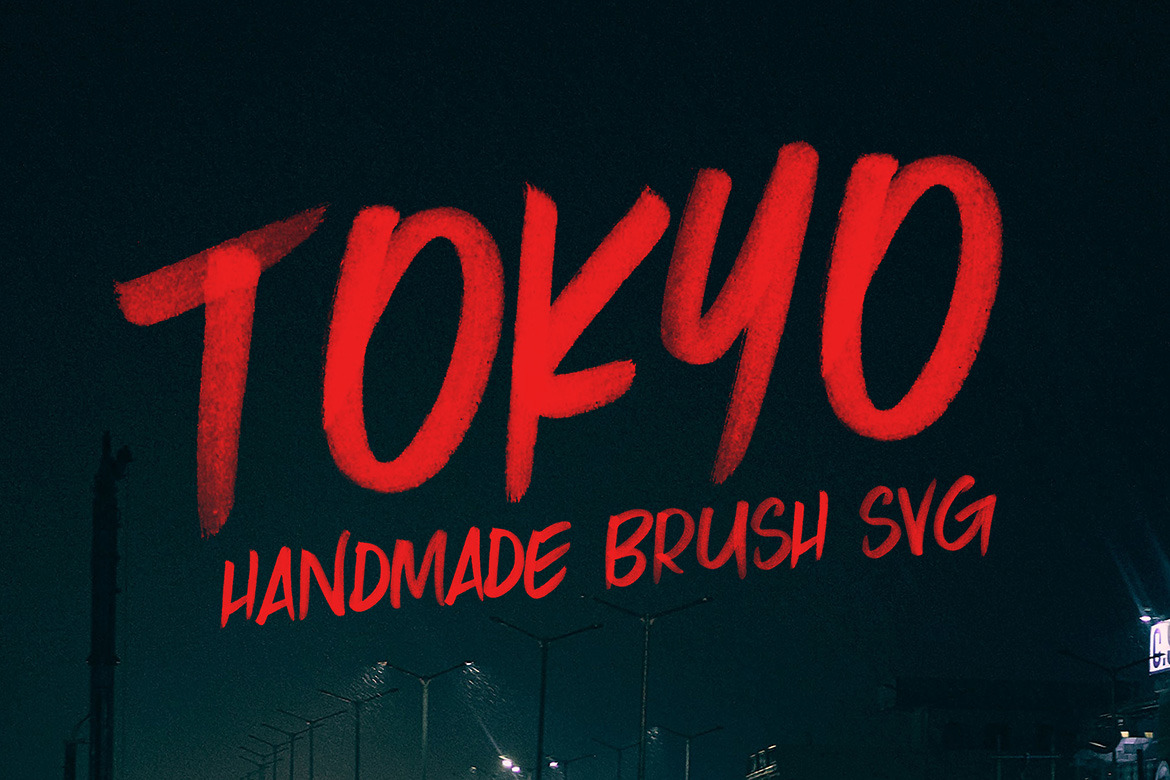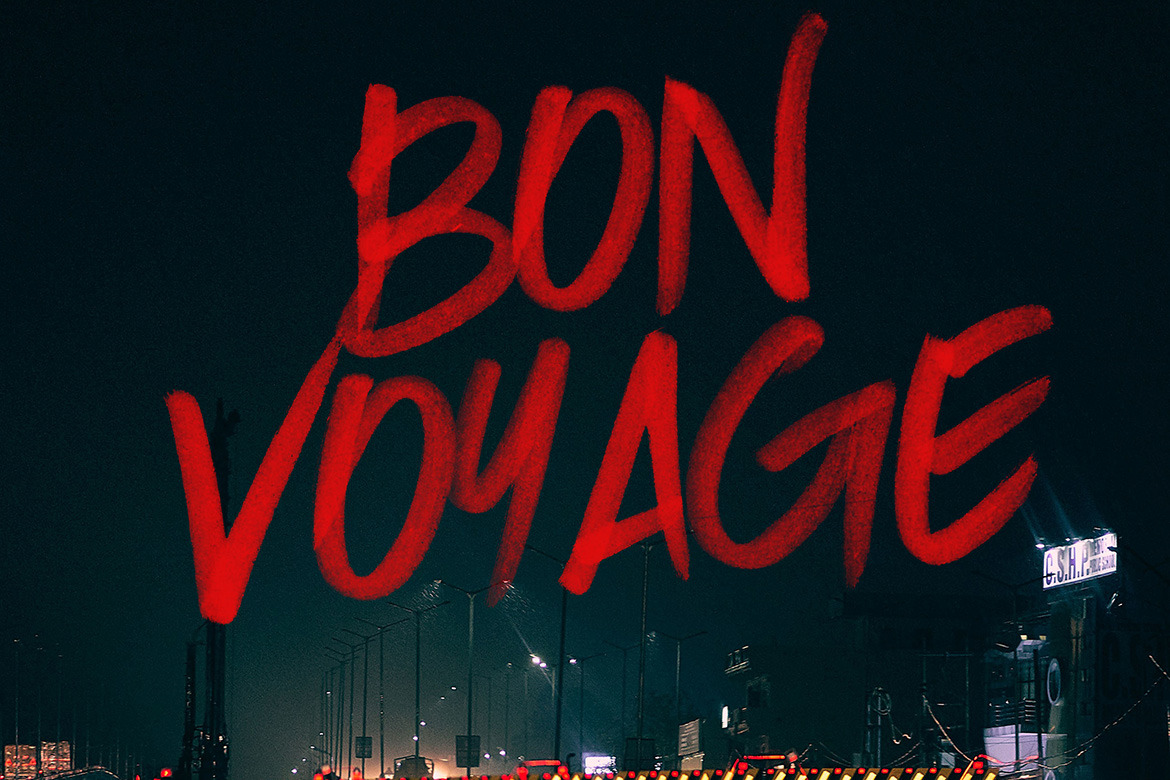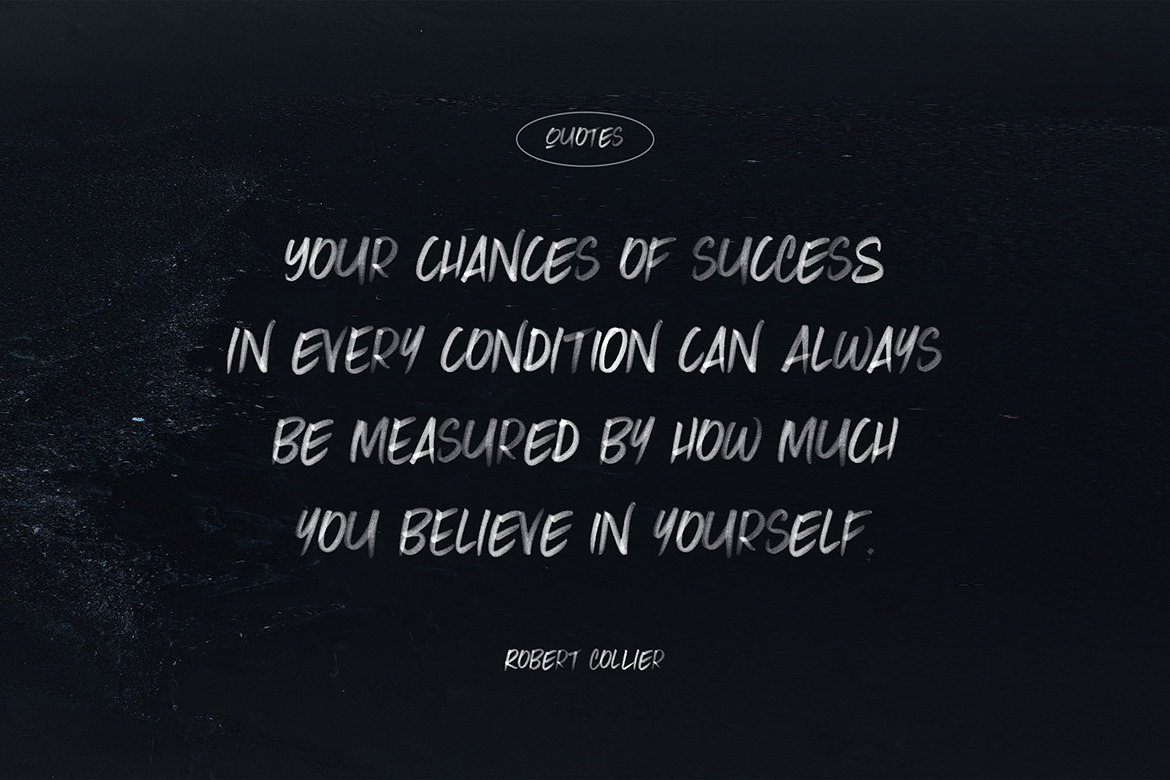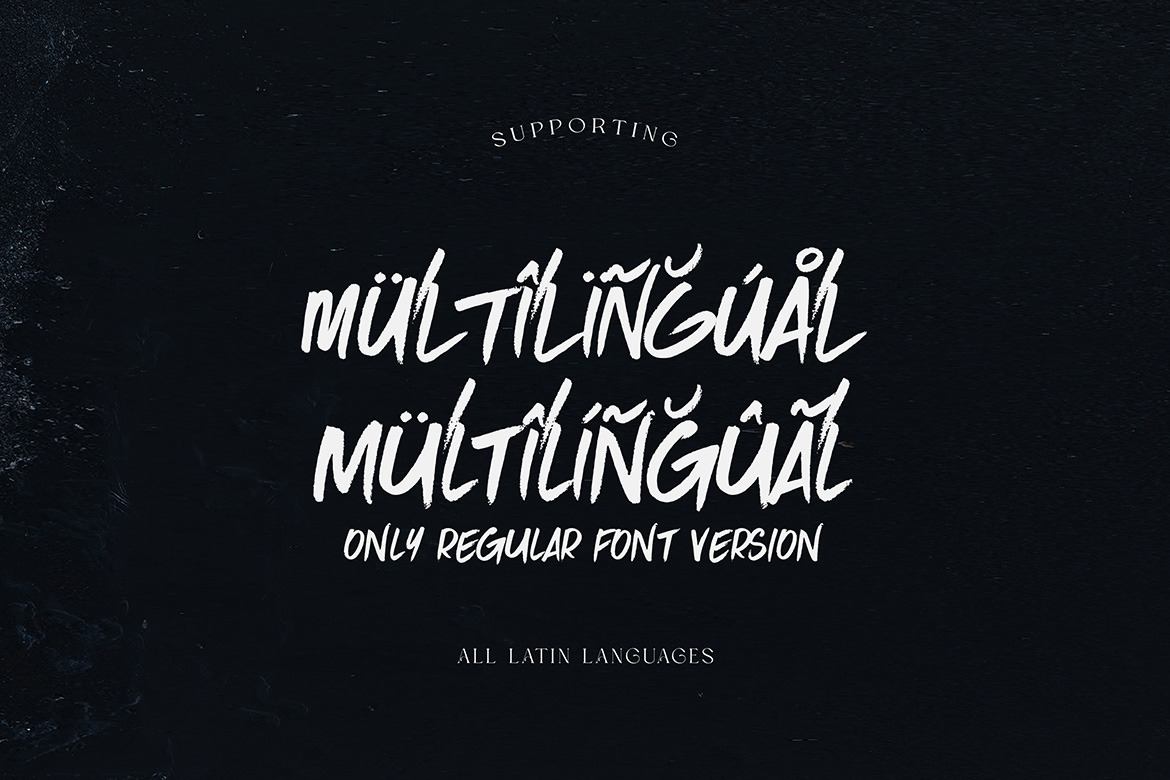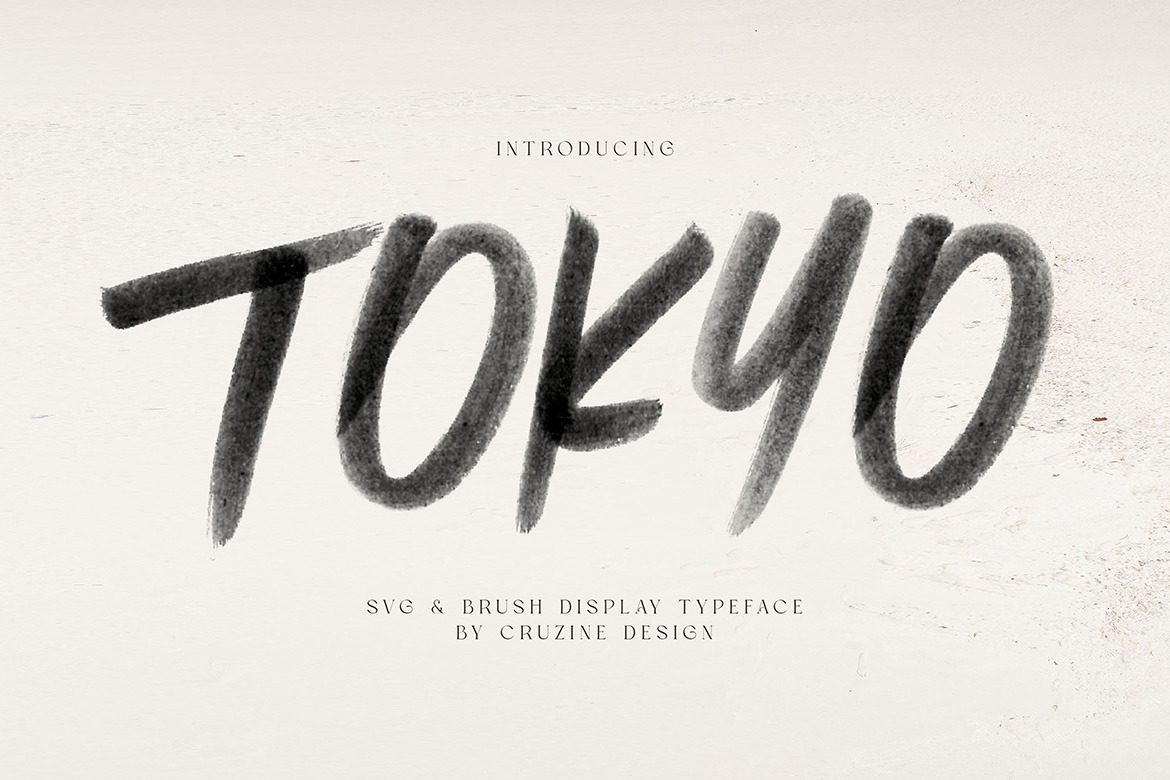
Tokyo SVG Brush Font
Brush, rough or grunge style sans serif display font for your new projects. Handwritten with bold marker. Great for grunge, urban or artistic projects!